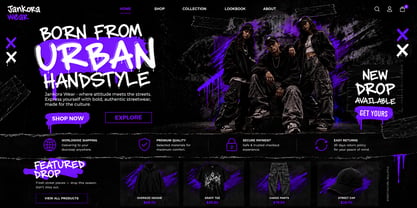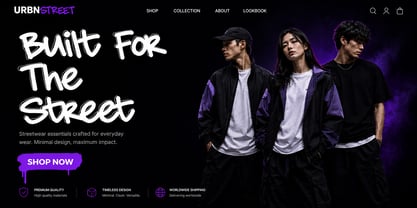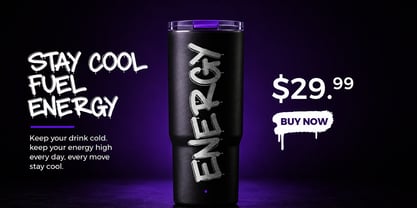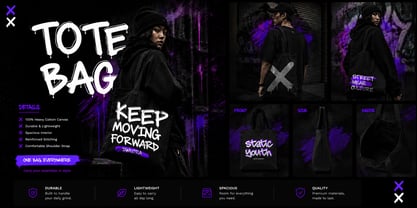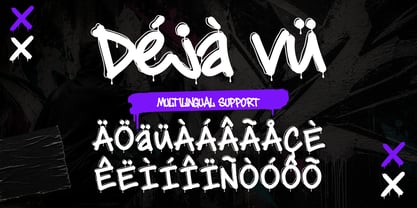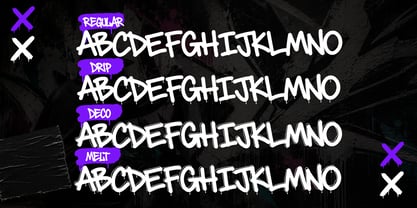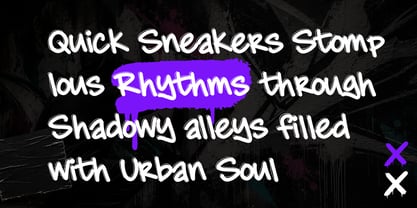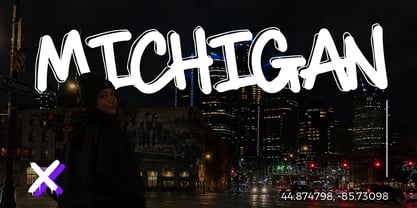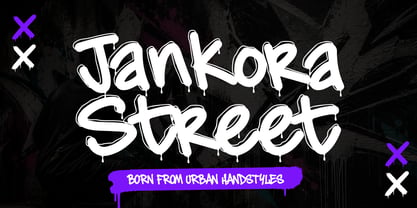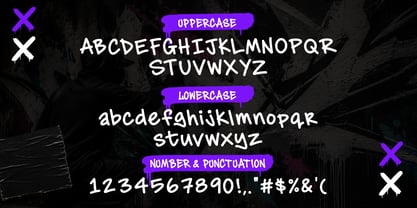
Jankora Street
Immerse yourself in the gritty yet vibrant world of urban street culture with Jankora Street, a bold monoline dripping decorative graffiti font. Inspired by the raw authenticity of handstyle lettering, spray-paint art, and explosive graffiti aesthetics, Jankora Street encapsulates the daredevil spirit of night owls who tag city walls with their artistic prowess.
Exquisitely tailored for designers craving strong typography with a real personality, this font fuses monoline structures with drippy handcrafted details. The result is a visually invigorating identity that bristles with edgy energy and attitude, firmly rooted in urban influences. From hip-hop visuals and streetwear branding to the burgeoning culture of late-night tagging, Jankora Street is a tribute to the city's unruly spirit.
Jankora Street owns every character. Each letter was meticulously crafted to ensure fluid motion and legibility, making it perfect for headlines, branding, posters, and digital landscapes that demand a heavy dosage of rebellious street energy. Whether you're designing edgy apparel, music album art, esports graphics, skate decks, social media promotions or urban-inspired merchandise, switch to Jankora Street to make a lasting visual impact.
The clean, modern monoline construction serves as the canvas for the font's authenticity, supplemented with dripping decorative flourishes that unleash the raw graffiti persona. Together, they produce typographical art that feels edgy, hand-made and unforgettable.
Jankora Street offers four robust styles, each creating a different urban ambiance. Regular gives you clean city typography; Drip immerses you in the visceral graffiti paint aesthetic; Decorative lends a touch of artistic street flair, and Melt explores experimental drip effects. Use them adaptively for layered typography system across diverse creatives, branding, album art, and more.
The package includes uppercase characters, numbers, punctuation and multi-lingual support, along with modern graffiti structure, strong display typography, and much more.
Jankora Street is perfect for streetwear branding, hip-hop graphics, urban posters, music album covers, skateboard designs, YouTube thumbnails, social media content, gaming visuals, and a gamut of expressions inspired by city life. Its handmade style oozes raw urban energy, sitting a notch above generic display fonts thanks to its life-like feel emanated from urban expression and graffiti culture.
Multilingual capability, complete with numbers and punctuation, lets you engage wider audiences while ensuring awe-inspiring consistency. Use it for titles that demand readability while exuding artistic grace, or go full-out with oversized headlines, apparel prints, urban-centric editorials, and promotional graphics.
The inclusion of four versatile styles lets you experiment endlessly. The robust rhythm of this edgy font is perfect for layering effects, shadowing, neon visuals, and urban layouts. Use it boldly in monochrome or vibrant hues to express unapologetic creativity and rebellion, while channeling the city nightlife, graffiti murals, and urban music culture into your visual narrative.
When you’re searching for a display font that feels genuine, dynamic, and contemporary, Jankora Street is your go-to typeface. It translates the electrifying seduction of street aesthetics into a potent typographical tool, without sacrificing flexibility. With Jankora Street, you're not just designing – you're narrating a story filled with confidence, style, and raw, undiluted artistic energy. Harness the essence of the streets in your projects with Jankora Street, the true graffiti font.